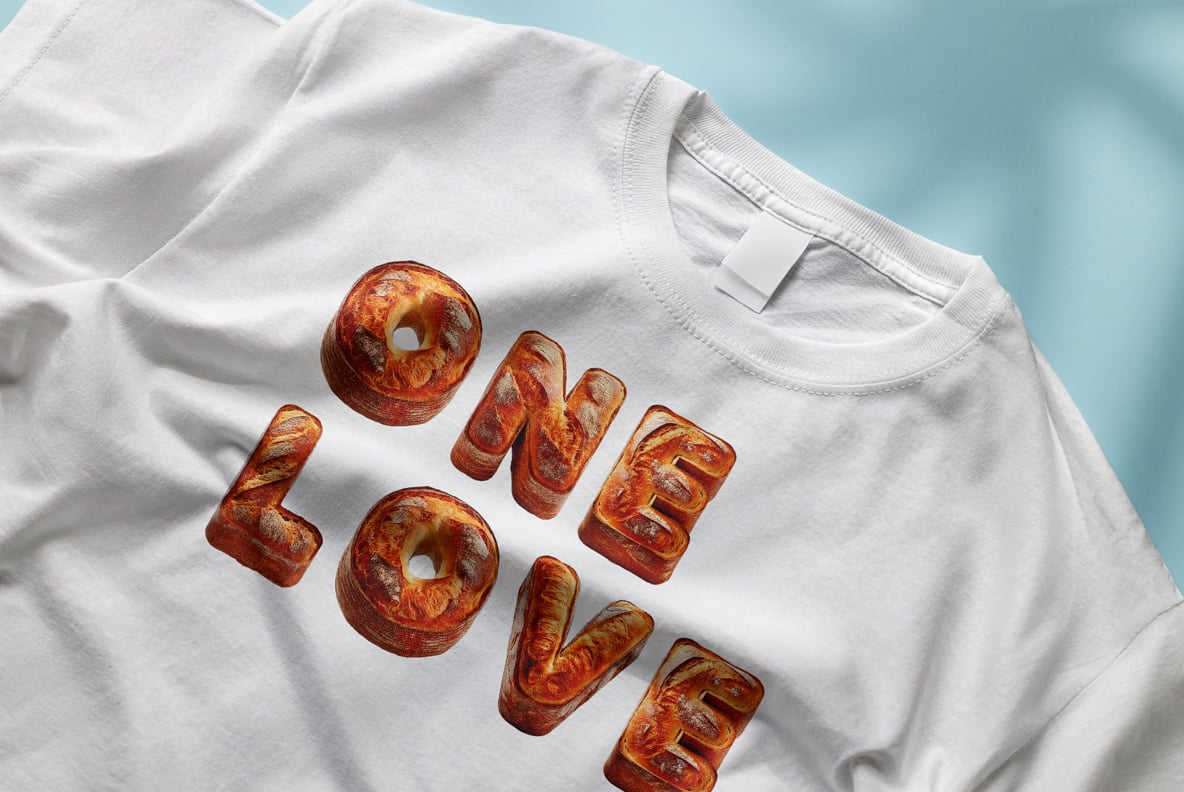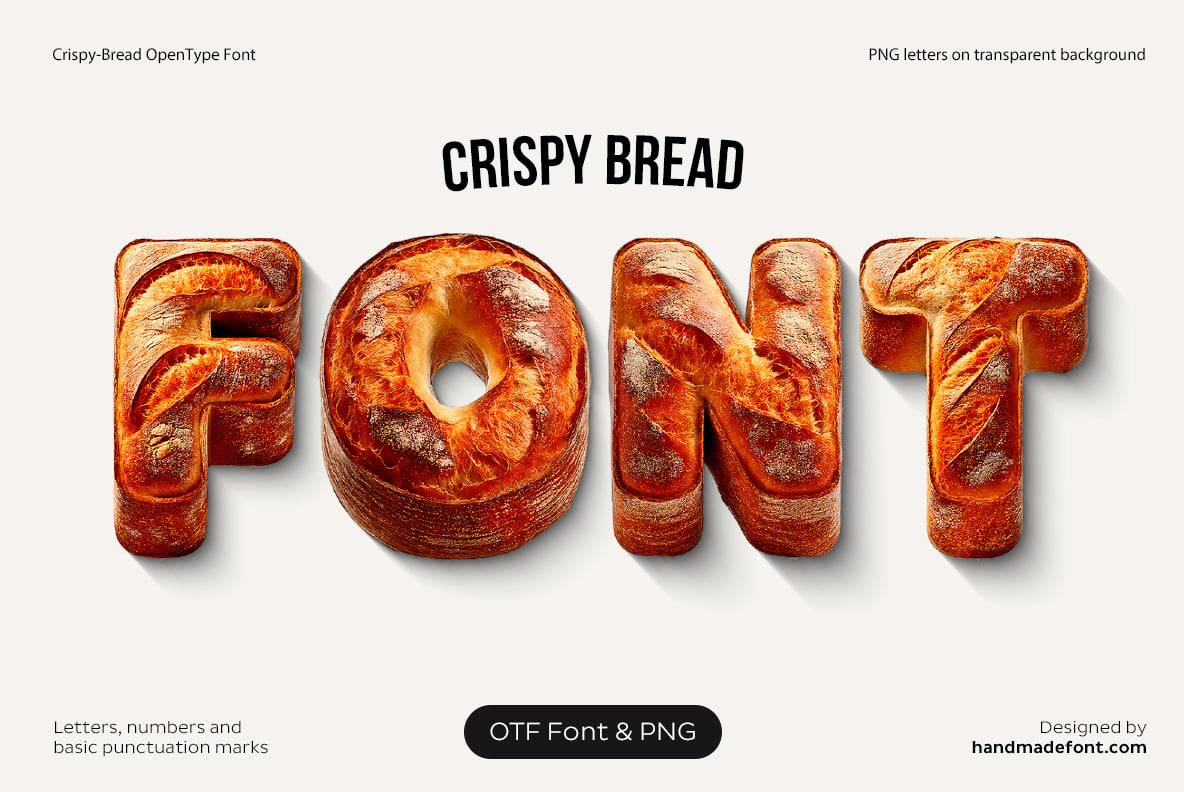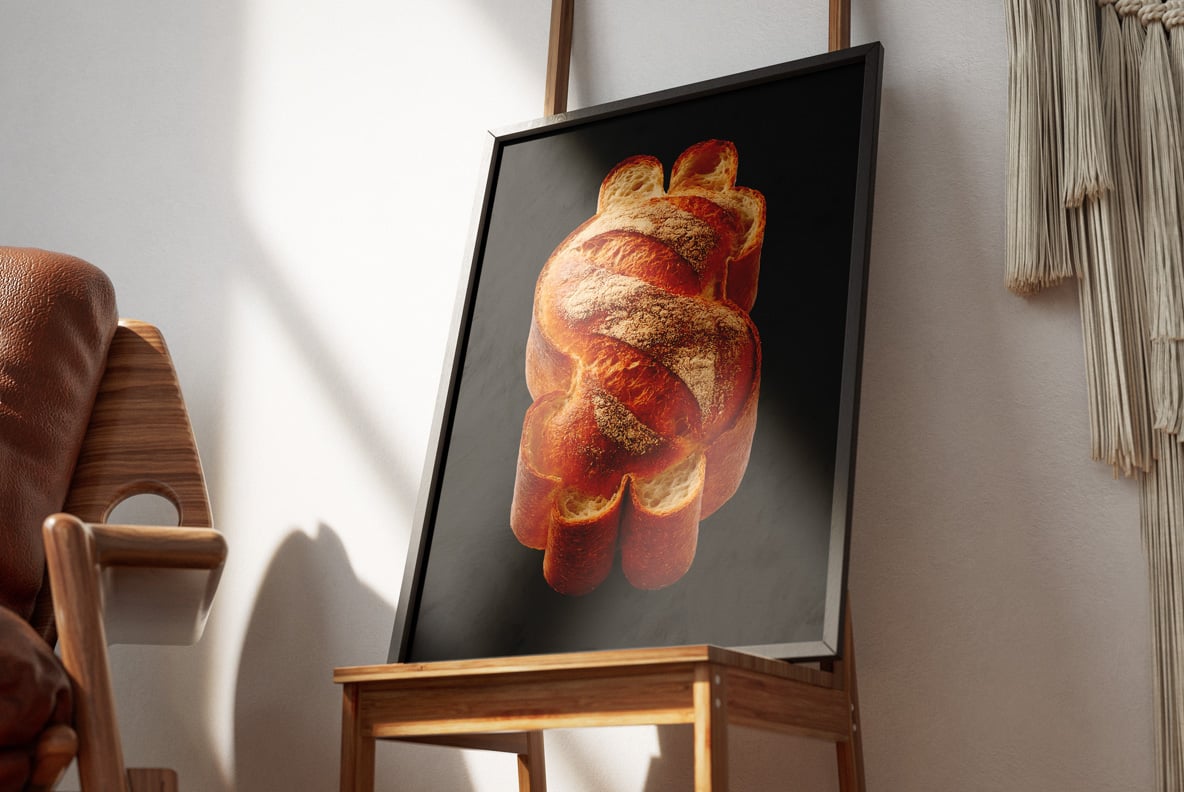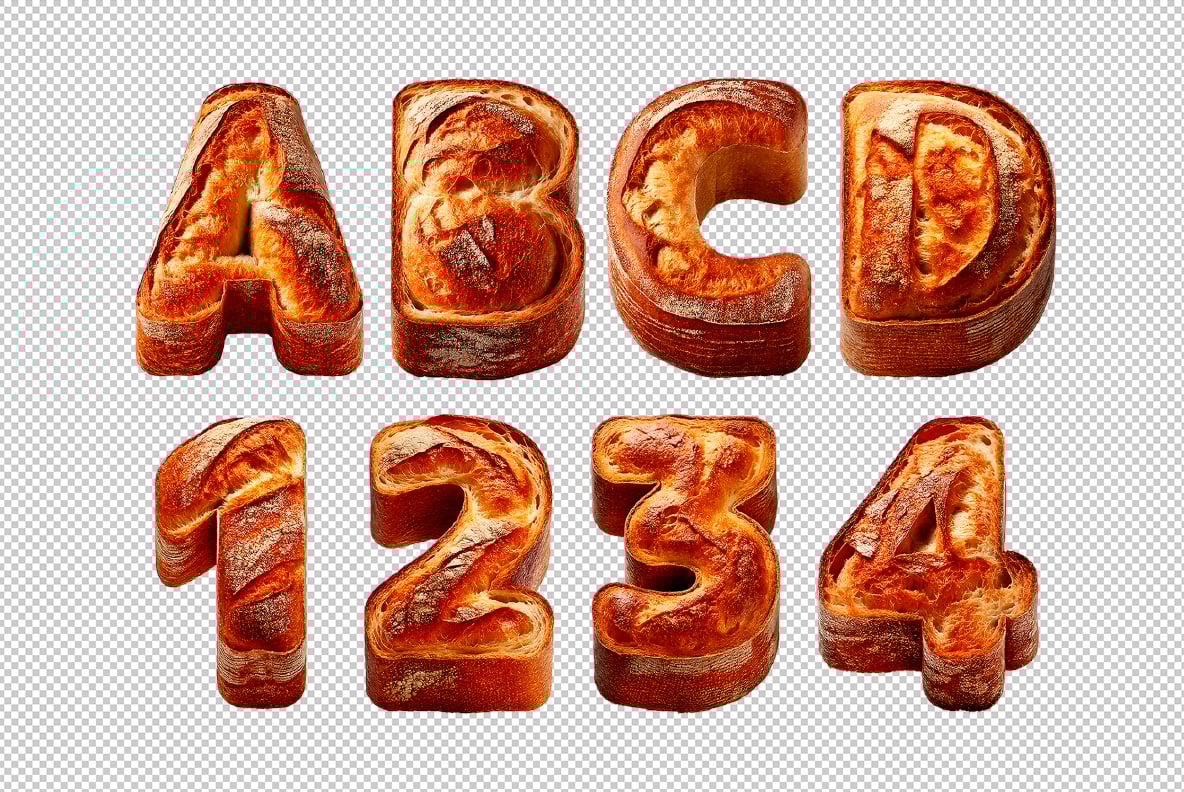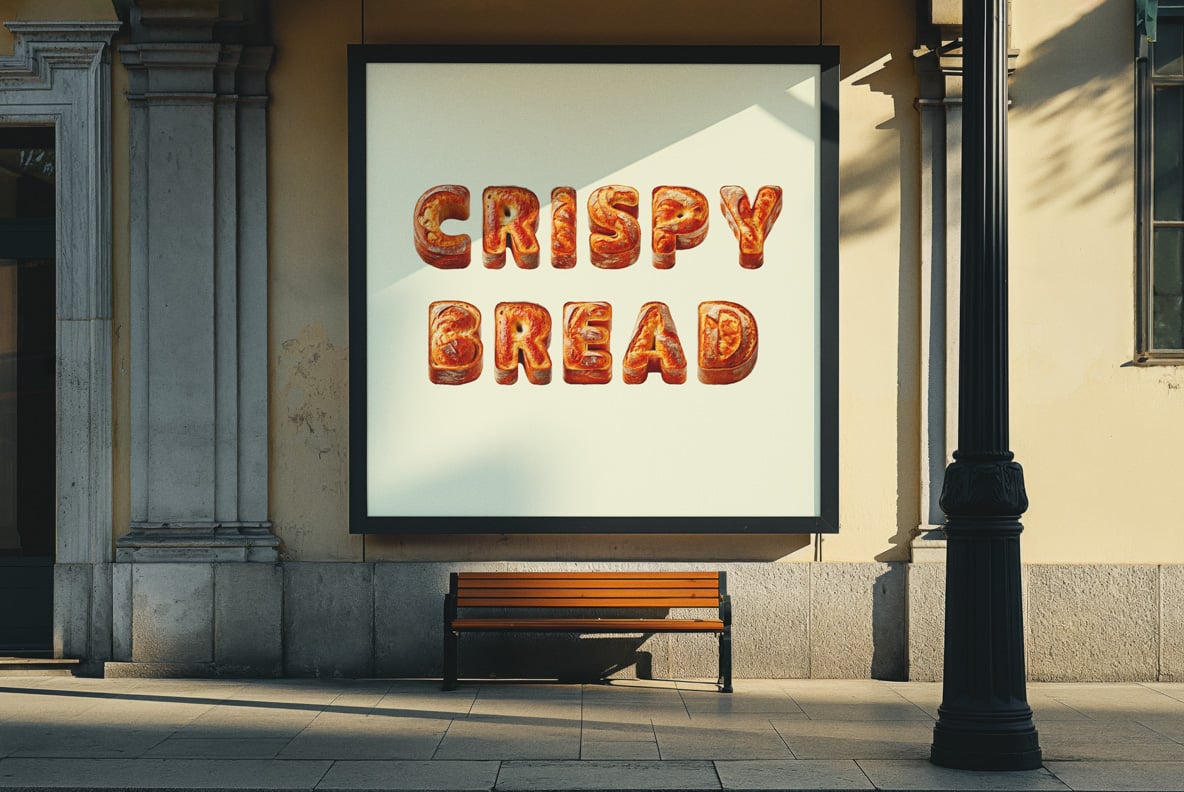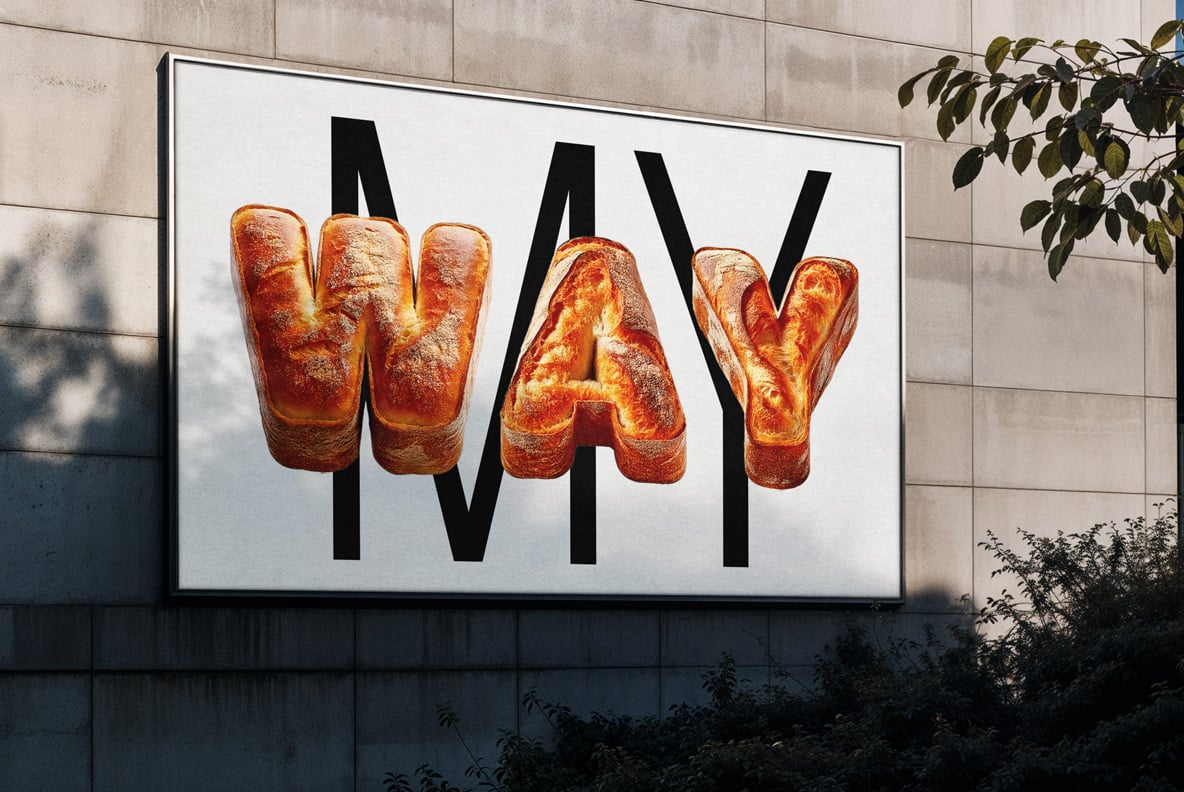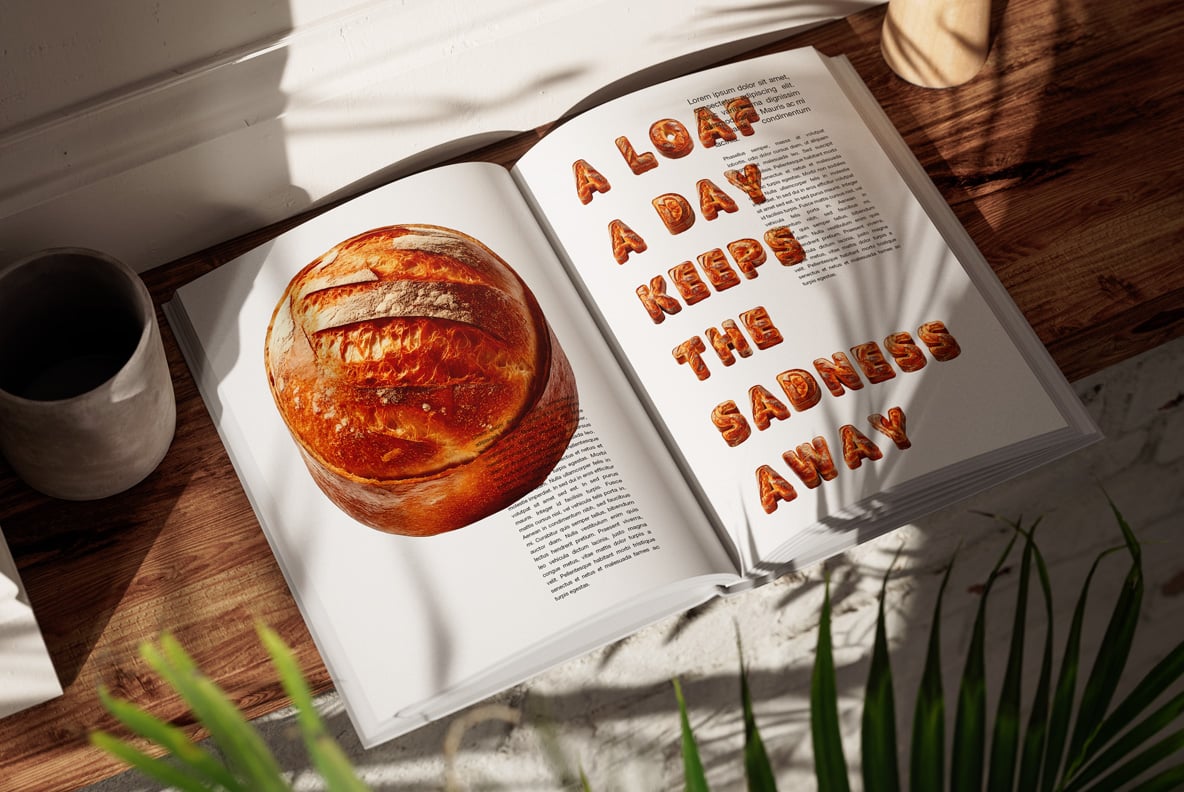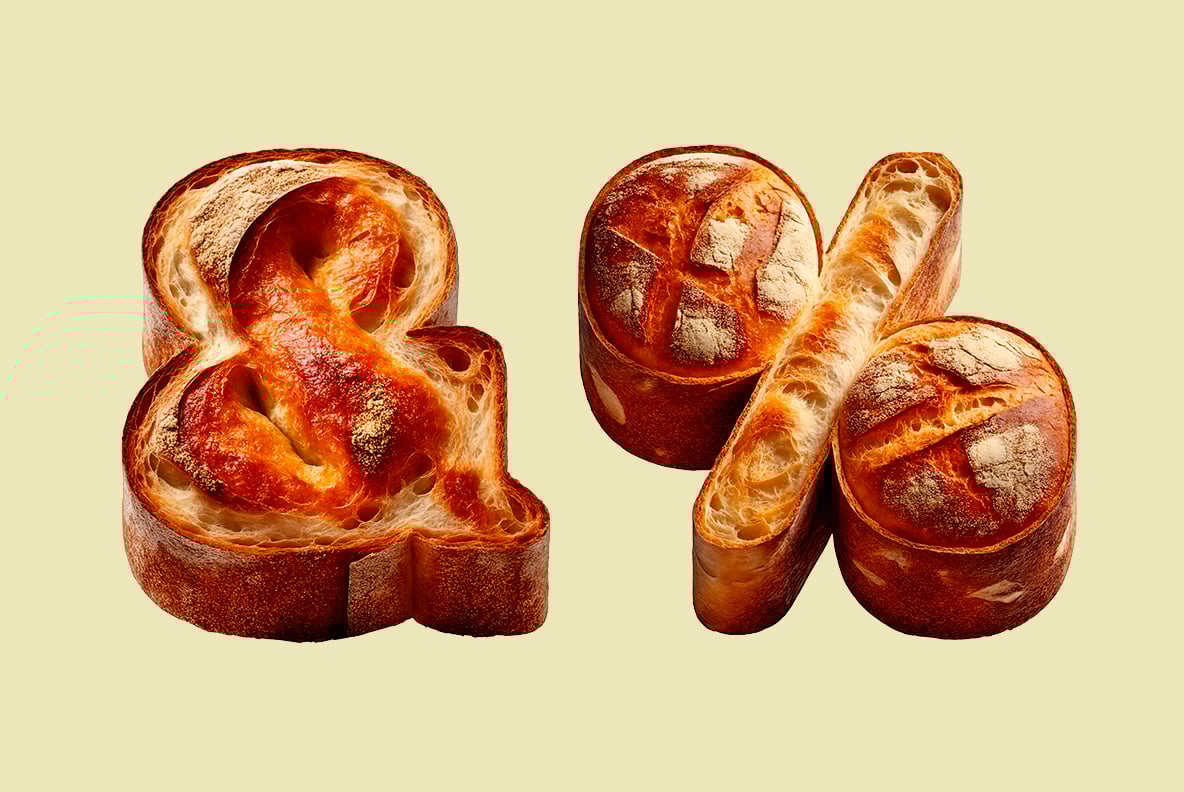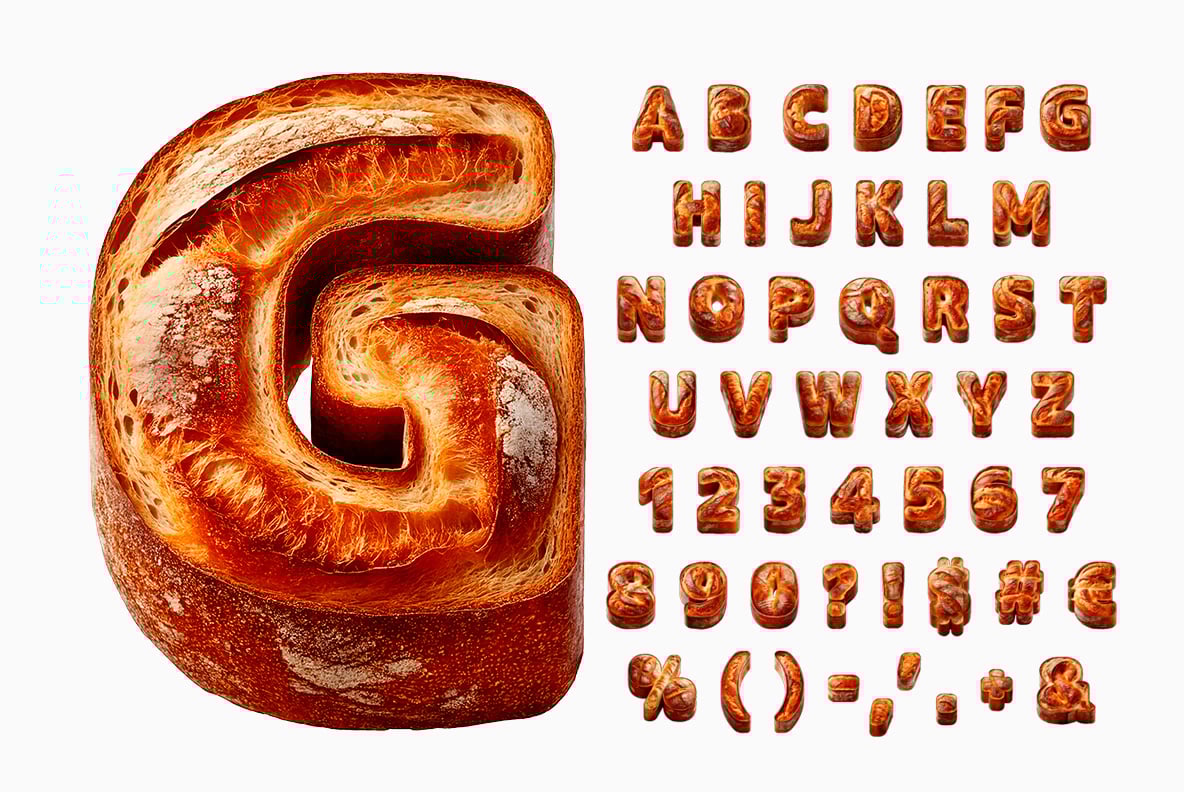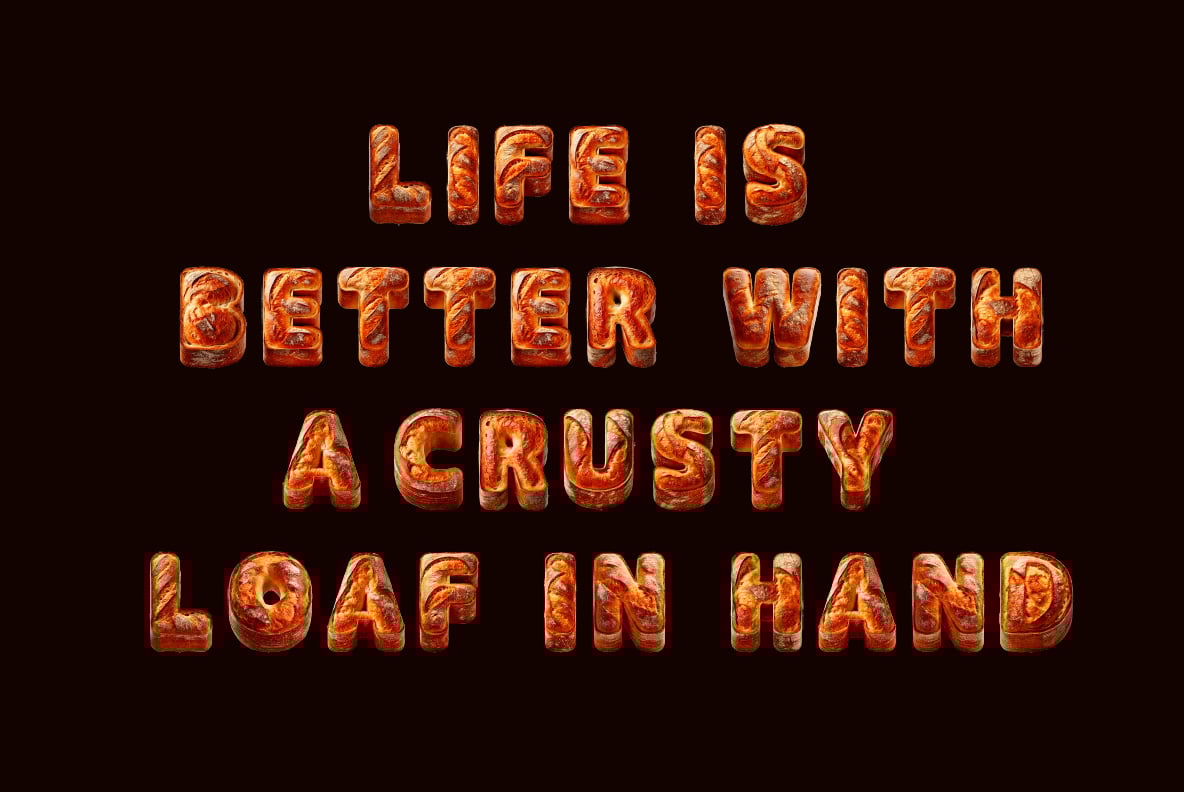
Crispy Bread Font
Bakery meets design with the delightful Crispy Bread Font! Each letter in this bread-inspired alphabet is crafted to look like it's made of golden, crispy bread, blending texture and warmth into your typography. Perfect for bakery branding, food-themed projects, or playful designs, this font adds a touch of culinary charm to your creations. Whether you're creating posters, logos, or social media content, the Crispy Bread Font brings a unique and delicious twist to your lettering. Celebrate the art of baking in style with this one-of-a-kind typography that’s as satisfying to look at as freshly baked bread is to eat!
A high definition OpenType Font. Contains uppercase characters, numerals and basic punctuation. (Draw height roughly 800 pixels). All letters and glyphs that comprises this font you can see on the preview.
Others : ! ? - . ' $ € % & #